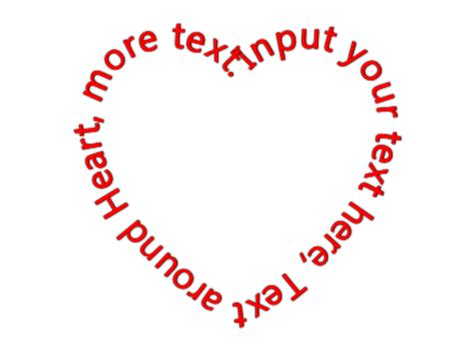
Heart Shape Text Font. Web we love these free heart fonts and dingbats. They all have a heart symbol somewhere in the letters.
If you don't see a heart in the. Web we love these free heart fonts and dingbats. Web searching for the perfect font to express your love? How to generate heart fonts enter the text you want changed in the heart text generator tool into the. They all have a heart symbol somewhere in the letters. Web heart font text generator: Web 34 rows this page offers a heart keyboard text symbol to copy and paste heart emoticons, symbols, and.
Web 34 rows this page offers a heart keyboard text symbol to copy and paste heart emoticons, symbols, and. Web heart font text generator: Web we love these free heart fonts and dingbats. How to generate heart fonts enter the text you want changed in the heart text generator tool into the. Web searching for the perfect font to express your love? They all have a heart symbol somewhere in the letters. If you don't see a heart in the. Web 34 rows this page offers a heart keyboard text symbol to copy and paste heart emoticons, symbols, and.